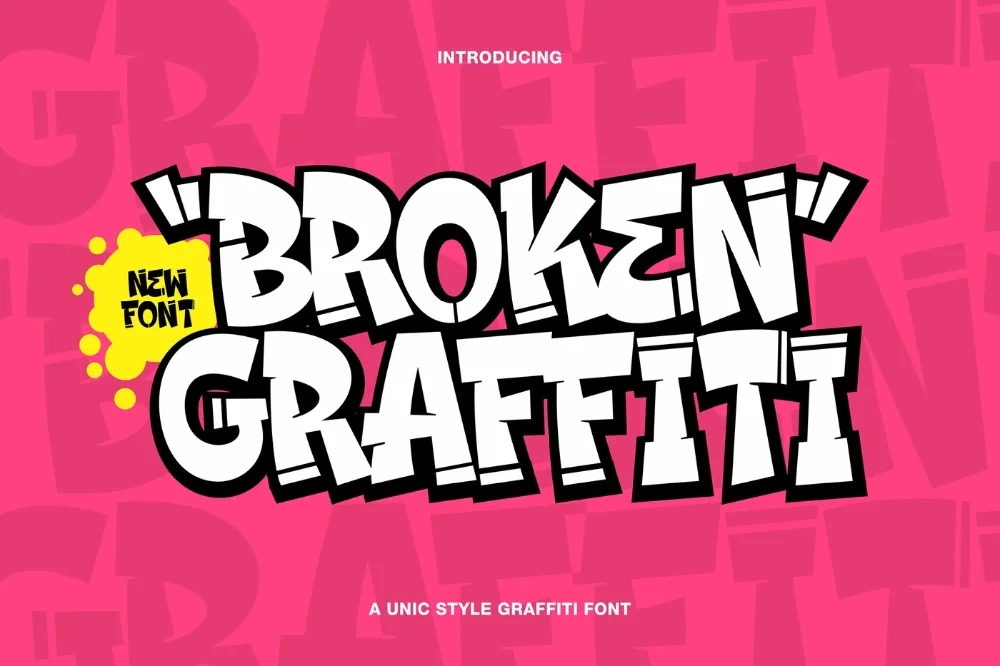
Cracked Concrete Graffiti Font
Among the distressed graffiti font options in this library, this alphabet is the one worth trying first. Letters broken up by fine cracks and missing chips. Weathered without tipping into unreadable.
Thin fractures run through the strokes and small pieces are knocked out of the corners, as though the surface underneath has aged. The underlying letter shapes stay simple so the damage reads as texture.
Great for horror and thriller artwork, distressed apparel, band merch, and grunge-styled layouts.